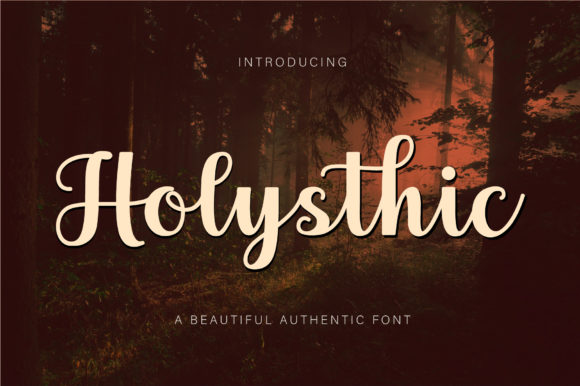
Get ready to unveil the captivating beauty of Holystic, an enchanting handwritten font that will transform your creative endeavors into captivating masterpieces. Its thick, carefully crafted body exudes a touch of elegance that adds a personal touch to any project.
Holystic is not just a font; it's an expression of your individuality, a tool that empowers you to turn your ideas into captivating realities. Its casual charm evokes a sense of authenticity and approachability, making it the perfect choice for personal projects, social media posts, and even handwritten letters. It's a font that speaks volumes without uttering a single word.
But Holystic is more than just a pretty face. Its incredible versatility knows no bounds. Whether you're creating social media graphics that demand attention or crafting a captivating resume that will leave a lasting impression, Holystic effortlessly adapts to your every need. Its thick, bold strokes command attention, while its flowing curves add a touch of grace and sophistication.
But wait, there's more! Holystic's PUA encoding unlocks a world of possibilities. With ease, you can access a treasure trove of glyphs and swashes, giving you the power to add intricate details and flourishes to your designs. It's like having a secret weapon that elevates your creativity to new heights.
With Holystic, the possibilities are endless. Let your imagination soar as you create stunning logos, eye-catching headlines, and captivating social media posts. Its unique character will make your designs stand out from the crowd, ensuring that your message resonates with your audience.